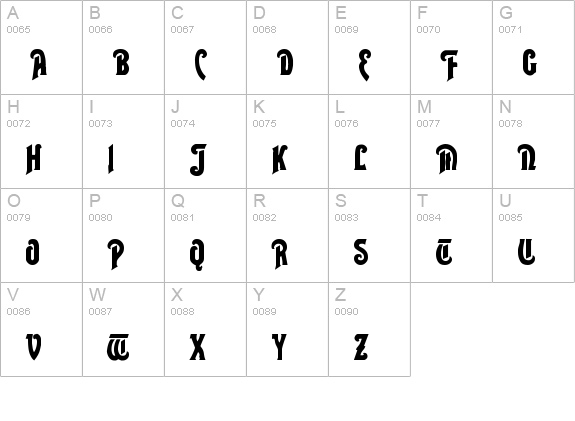
Carter font is a versatile and modern typeface that exudes elegance and sophistication. With its clean lines and well-balanced letterforms, Carter font is perfect for a wide range of design projects, from branding to editorial layouts. This font features a unique blend of classic and contemporary elements, making it a standout choice for designers looking to make a statement. And the best part? Carter font is available for free download at FontsMarket.com. This means you can easily access this high-quality font and use it in your projects without any cost. So why wait? Add Carter font to your collection today and elevate your designs with its timeless appeal.